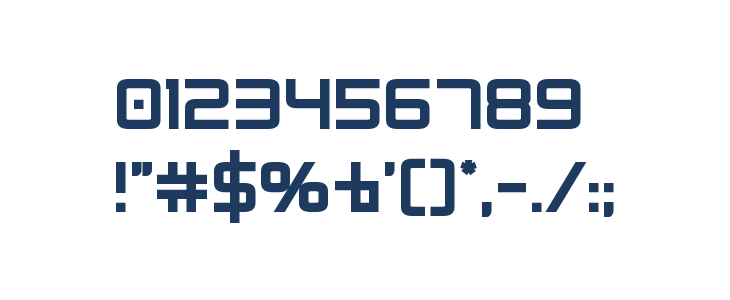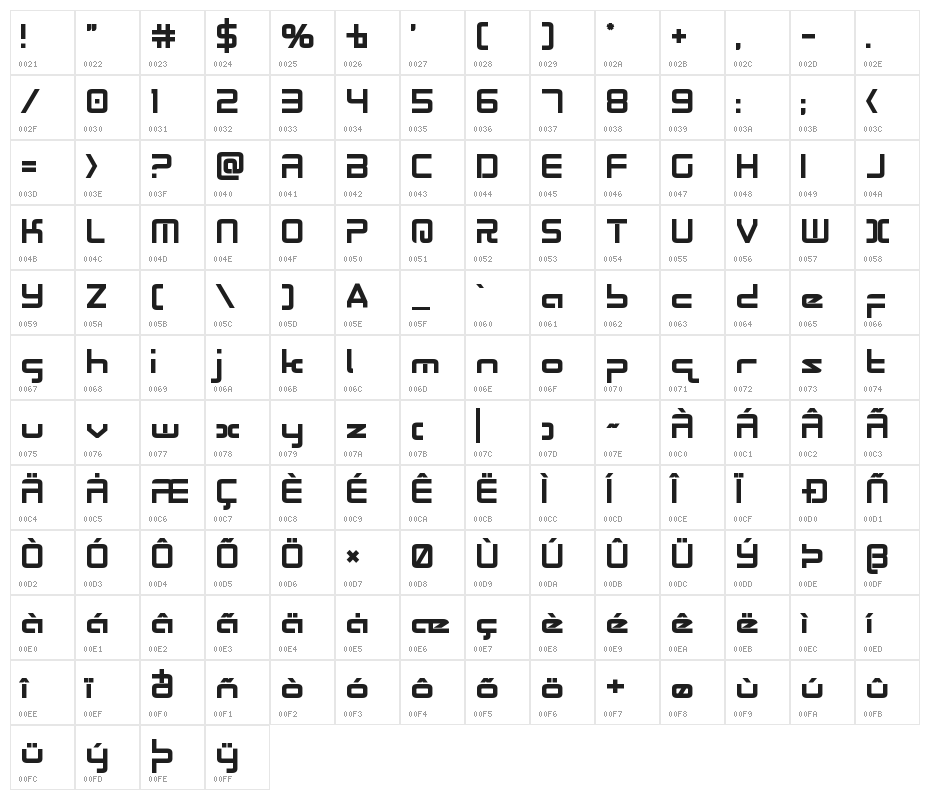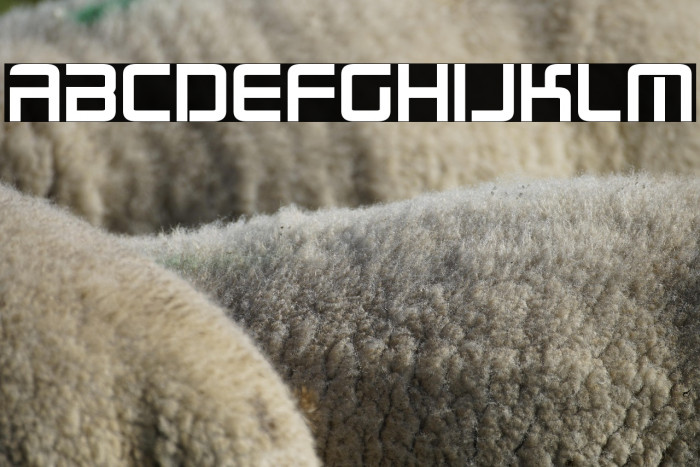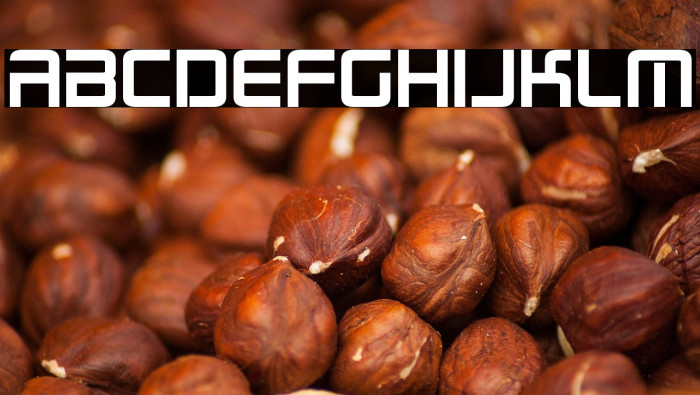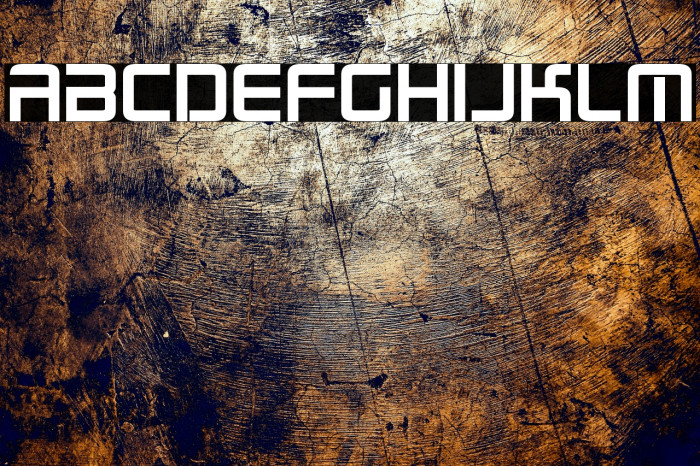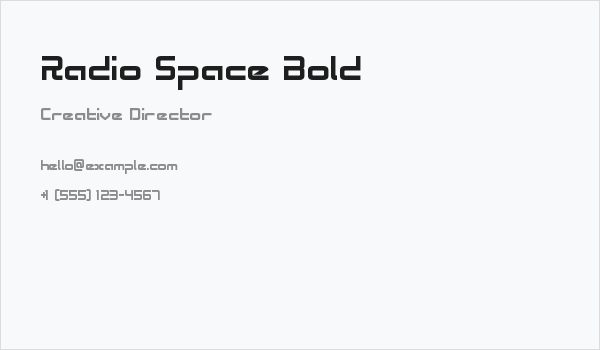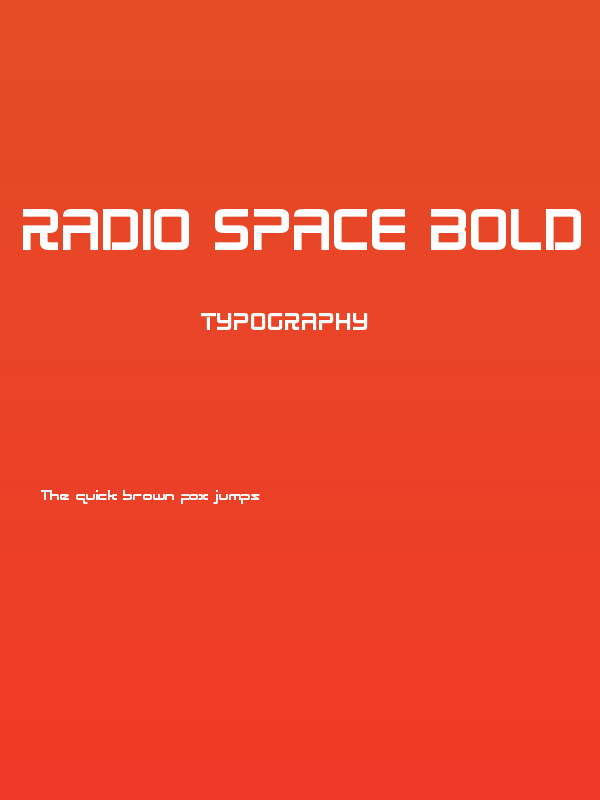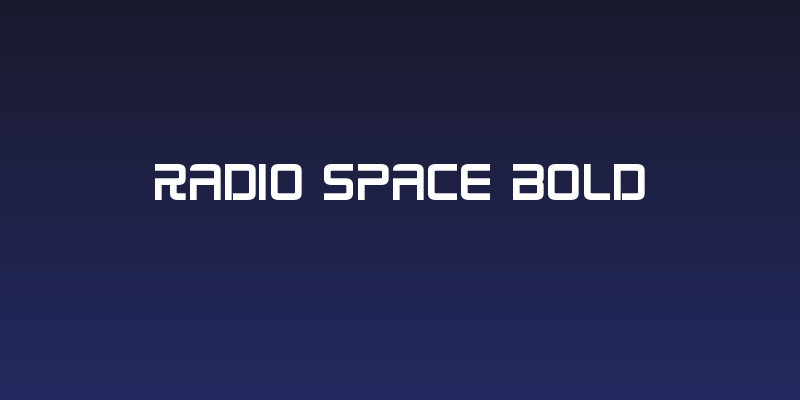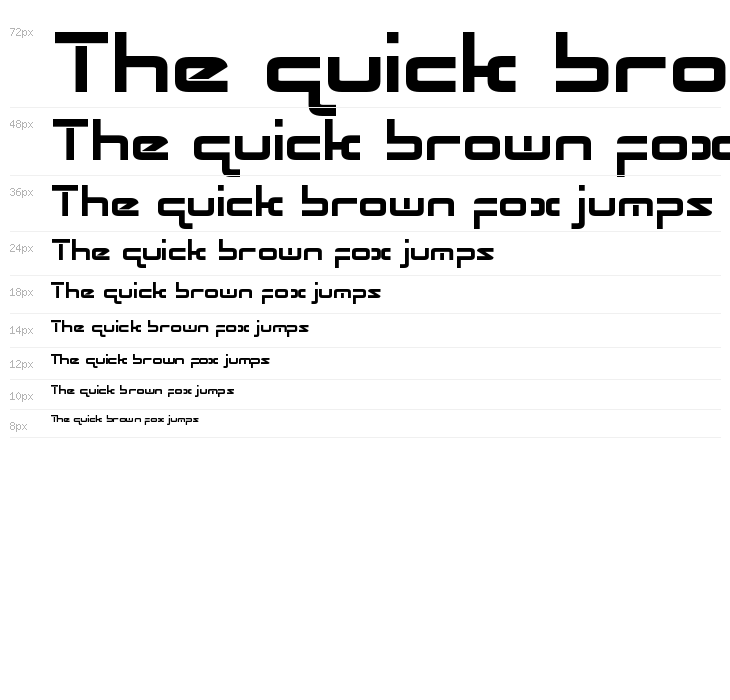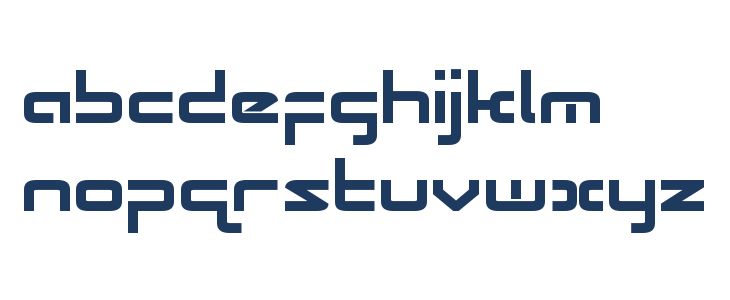
Radio Space Bold Font
Radio Space Bold Description
This font features a futuristic and geometric design, characterized by its bold and rounded letterforms. The uppercase letters are uniform in height, with a consistent stroke width that gives a strong and cohesive appearance. The lowercase letters maintain the same geometric style, with some unique touches such as the distinctive tail on the 'g' and the open loop of the 'e'. The numerals are clear and easily distinguishable, following the same bold and rounded aesthetic. Special characters are well-integrated, maintaining the overall design consistency. This font is ideal for projects that require a modern and tech-inspired look.